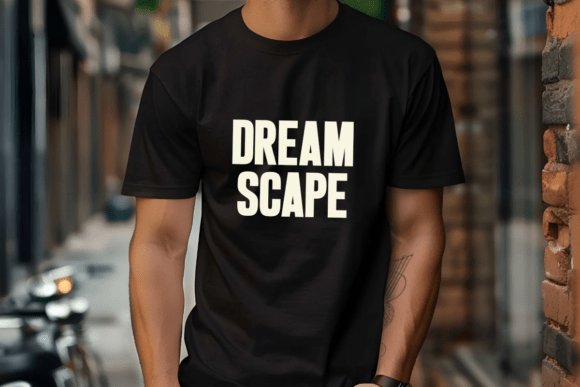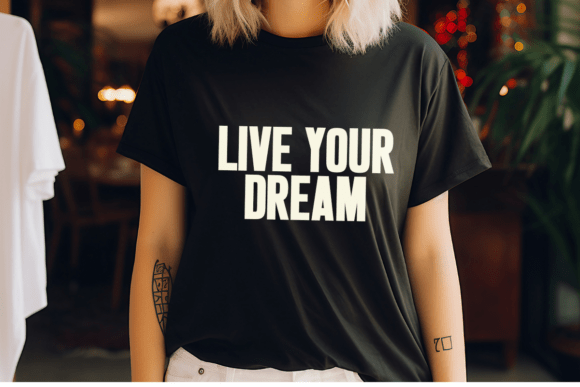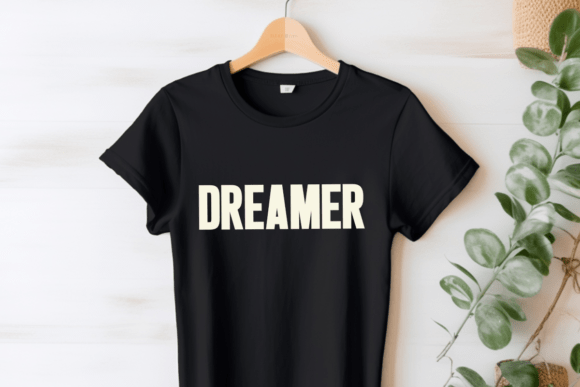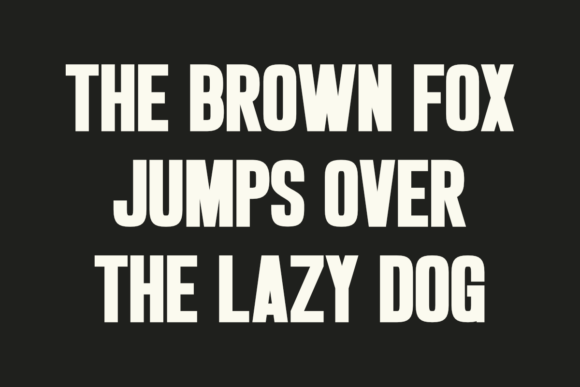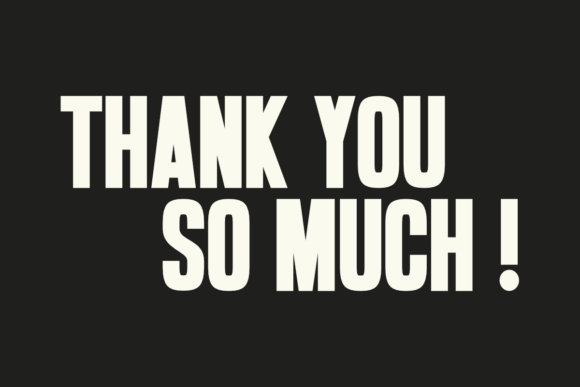
The Dreamer Font: A Bold and Impactful Choice for Modern Creatives
I’ll never forget the design project that led me to discover the Dreamer Font. I was working on a branding project for a new coffee shop, and my client requested a bold, eye-catching font that would stand out on their merchandise. After hours of searching through font libraries, I stumbled upon Dreamer, and it was love at first sight! ✨ Its strikingly assertive presence and minimalist, clean lines were exactly what I needed to make a statement.
- ✅ High visibility: Dreamer Font is designed to cut through the noise and deliver a clear, memorable message.
- ✅ Versatility: This font excels in a variety of high-impact applications, including branding, logo design, large-format titles, magazine headlines, and editorial layouts.
- ✅ Legibility: Dreamer’s thick strokes and condensed shape ensure it prints beautifully and remains legible even when scaled or used on merchandise.
- ✅ Clean design: The font’s robust design makes it ideal for cutting machines (Cricut/Silhouette) and vinyl projects.
While Dreamer Font is an amazing choice for many projects, there are a few things to keep in mind: ⚠️ The font’s boldness can be overwhelming if not used thoughtfully. Make sure to balance it with plenty of white space and consider using it in combination with a lighter font for body text. 🤔 Additionally, some users may find the font’s condensed shape challenging to read at very small sizes.
The Story Behind Dreamer Font
Dreamer Font was designed with the modern creative in mind. Its creator, a talented typographer, aimed to craft a font that would make a statement and cut through the noise. With its bold and condensed shape, Dreamer Font is perfect for designers looking to deliver a clear and memorable message.
| What is the best use case for Dreamer Font? | Dreamer Font excels in high-impact applications like branding, logo design, large-format titles, magazine headlines, and editorial layouts. |
| Is Dreamer Font suitable for body text? | While Dreamer Font is a beautiful font, its boldness can be overwhelming for body text. It’s best used as a display font or in combination with a lighter font for body text. |
| Does Dreamer Font come with OpenType features? | Yes, Dreamer Font includes standard OpenType features like glyphs and stylistic alternates, which can be accessed in compatible design software. |